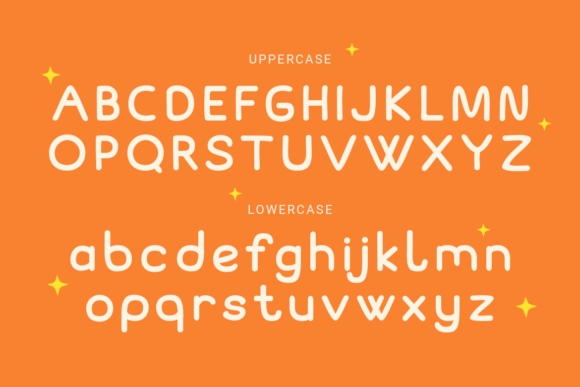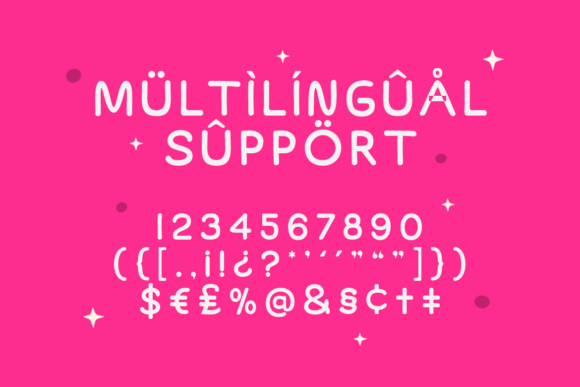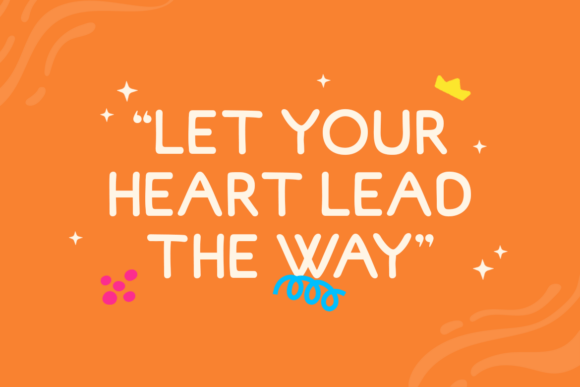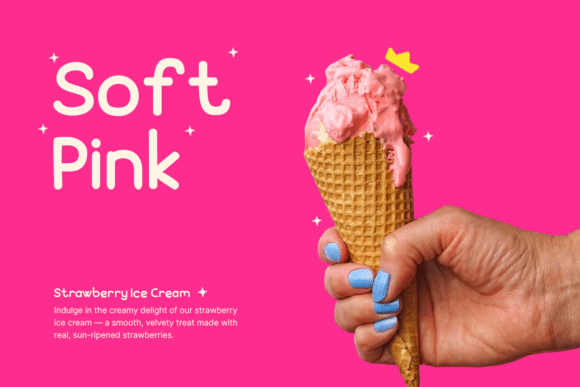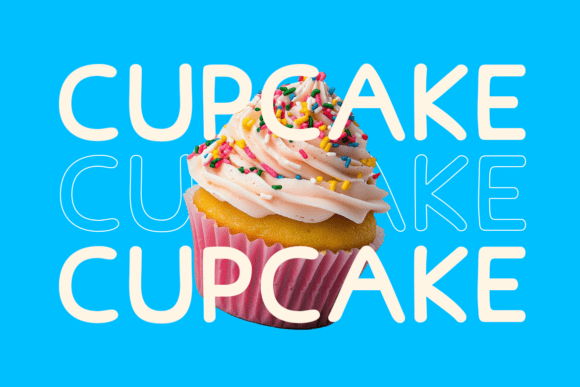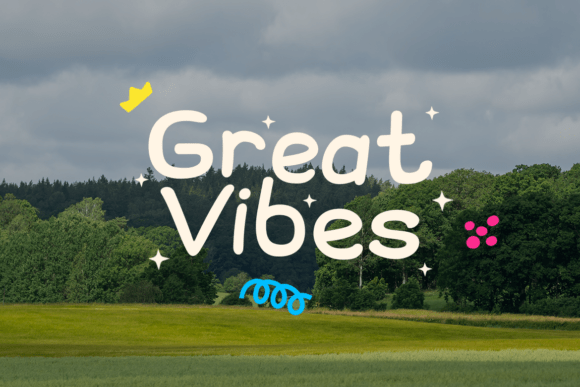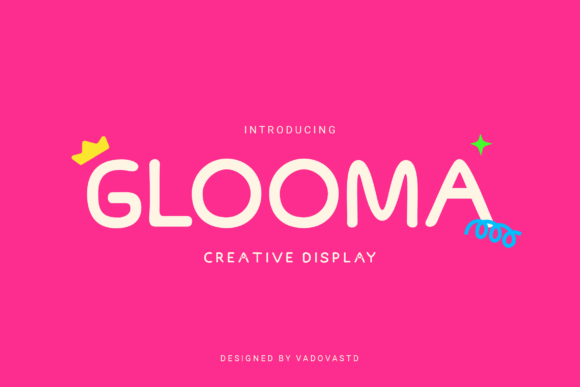
Introducing Glooma Font: The Ultimate Creative Rounded Display Font
In the world of typography, fonts play a crucial role in conveying messages, expressing emotions, and creating visual identities. For designers, crafters, and marketers, finding the perfect font can be a daunting task. However, if you’re looking for a creative and cheerful font to elevate your designs, look no further than Glooma Font. In this article, we’ll dive into the features, benefits, and uses of Glooma Font, and explore why it’s a must-have for any creative project.
What is Glooma Font?
Glooma Font is a creative rounded display font that boasts soft curves, smooth strokes, and a vibrant visual tone. Its unique character style makes it stand out in colorful compositions while maintaining a clean and modern structure. Whether you’re designing a logo, creating social media graphics, or crafting a brand identity, Glooma Font is the perfect choice for adding a touch of playfulness and whimsy to your work.
Key Features of Glooma Font
- Soft Curves and Smooth Strokes: Glooma Font features soft curves and smooth strokes that give it a friendly and approachable feel.
- Vibrant and Bubbly Character Style: The font’s vibrant and bubbly character style makes it perfect for colorful compositions and designs that require a pop of personality.
- Clean and Modern Structure: Despite its playful nature, Glooma Font maintains a clean and modern structure that ensures it remains legible and professional.
Benefits of Using Glooma Font
So, why should you choose Glooma Font for your next project? Here are just a few benefits of using this amazing font:
- Adds Personality to Your Designs: Glooma Font’s unique character style and playful tone can add a much-needed personality to your designs, setting them apart from the competition.
- Perfect for Colorful Compositions: The font’s vibrant and bubbly style makes it perfect for colorful compositions, ensuring your designs pop with color and energy.
- Versatile and Adaptable: Glooma Font is versatile and adaptable, making it suitable for a wide range of applications, from logos and branding to social media graphics and more.
Who Can Benefit from Glooma Font?
Glooma Font is perfect for a variety of creatives, including:
- Graphic Designers: Add a touch of personality to your designs with Glooma Font’s unique character style.
- Crafters: Use Glooma Font to create handmade cards, gift tags, and other paper crafts that require a playful touch.
- Marketers: Elevate your brand identity with Glooma Font’s clean and modern structure, perfect for logos, social media graphics, and more.
- Small Business Owners: Create a professional and playful visual identity for your business with Glooma Font.
In conclusion, Glooma Font is a creative rounded display font that offers a unique blend of soft curves, smooth strokes, and a vibrant visual tone. Its versatility, adaptability, and ease of use make it perfect for a wide range of applications, from graphic design and crafting to marketing and branding. Whether you’re looking to add personality to your designs or create a playful visual identity, Glooma Font is the perfect choice. So why wait? Get creative with Glooma Font today and take your designs to the next level!